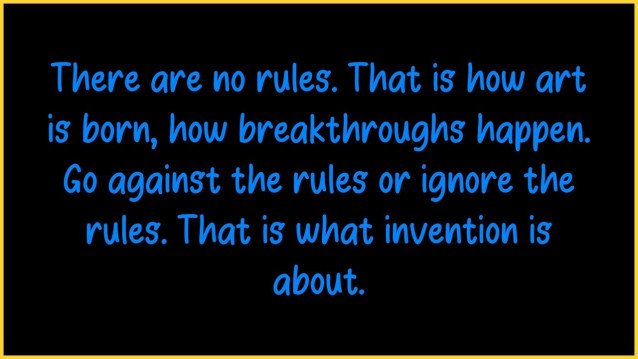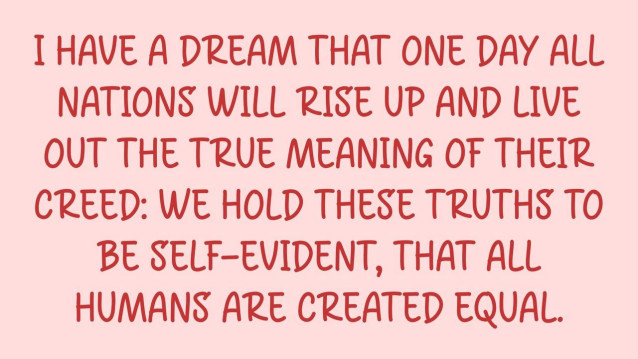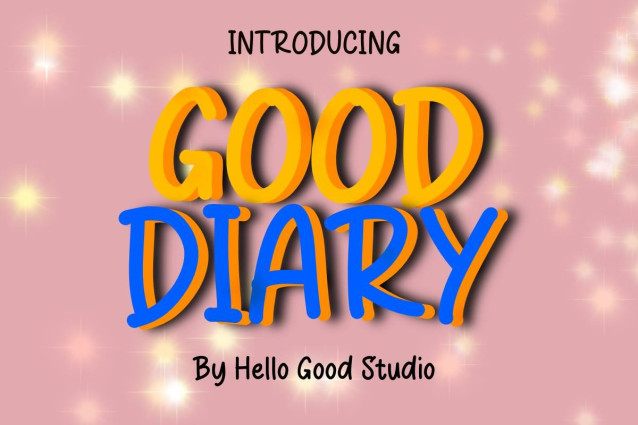
Good Diary Font
Good Diary Font is a simple and modern display font suitable for quotes, logos, headings, titles, and many more. Use it on any of your creative projects, and your designs will become outstanding!